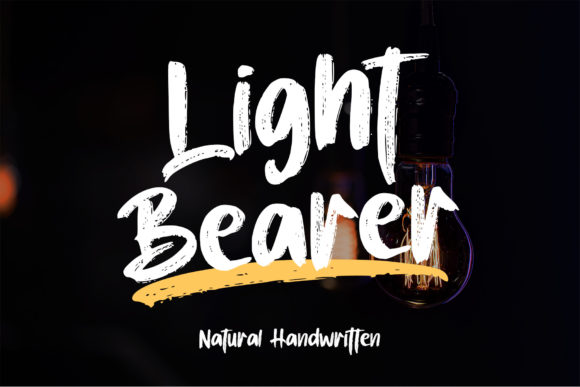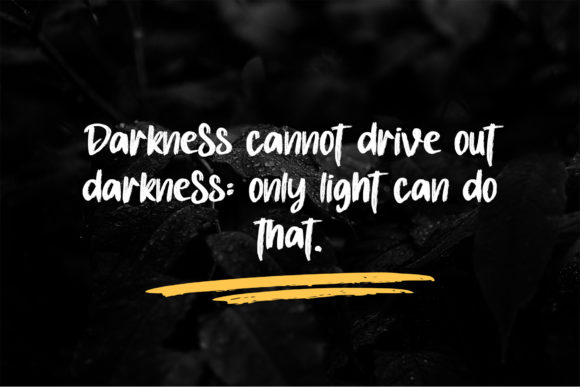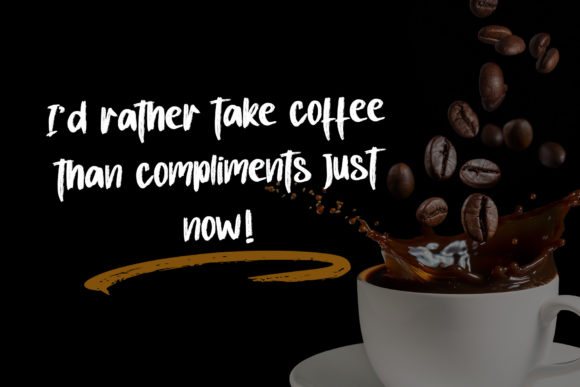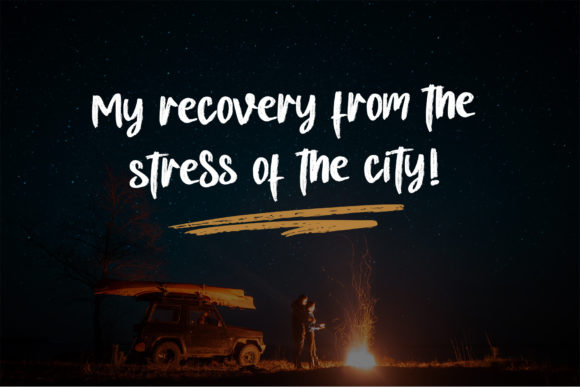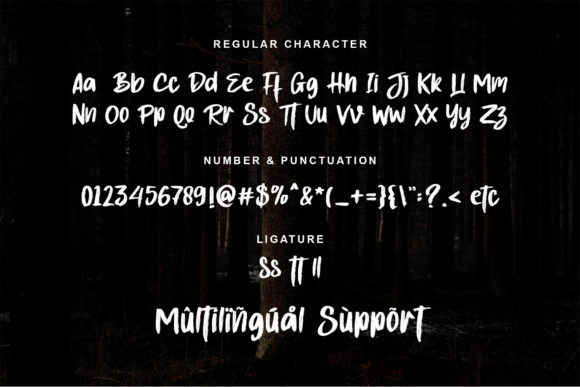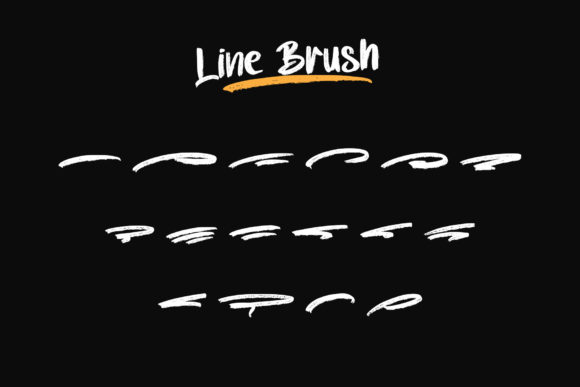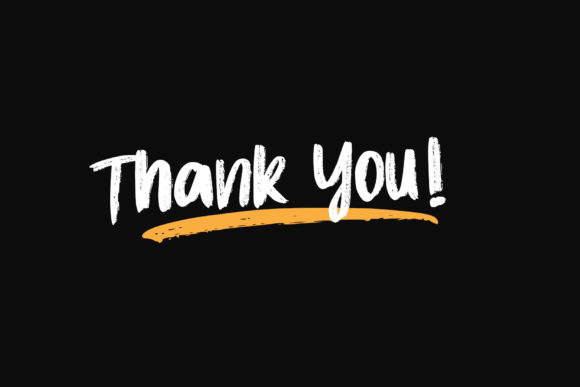
Light Bearer Font
About Light Bearer Font
Light Bearer is a cool and brushed handwritten font. It’s ideal for branding, labels and posters. This is a PUA code which means you can access all the glyphs and sweeps easily!